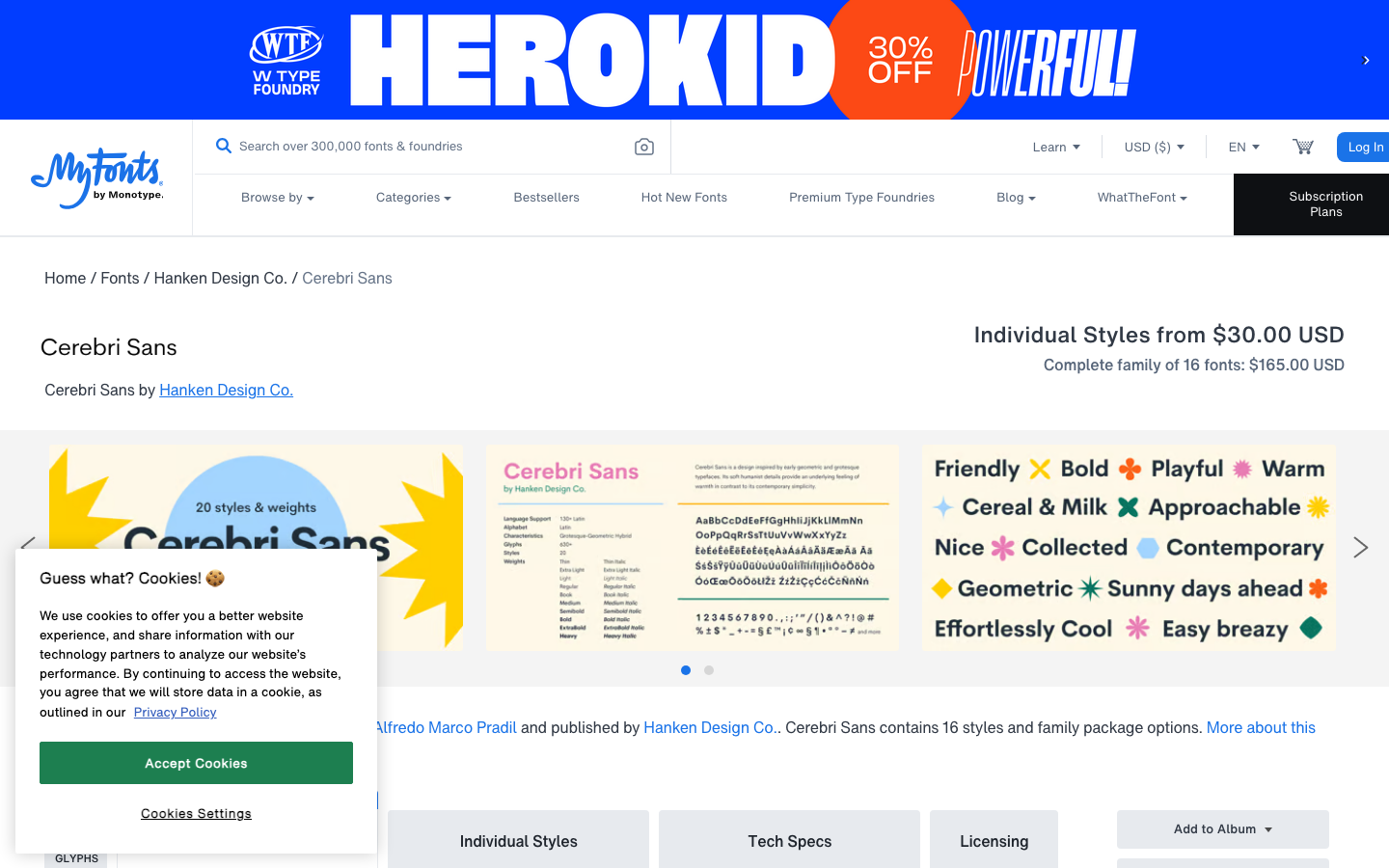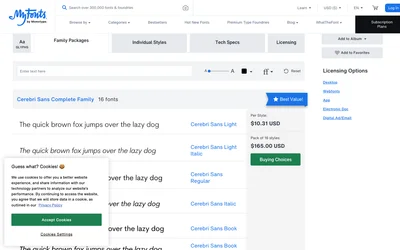
Cerebri Sans vs Codec Pro
Cerebri Sans and Codec Pro are both sans-serif typefaces sharing a geometric foundation. Where Cerebri Sans leans minimal, Codec Pro brings futuristic, tech. Compare which suits your Ui project.
Recommended: Cerebri Sans
- minimal design character
- Suited for Apps
Consider: Codec Pro
- futuristic, tech design character
- Suited for Gaming